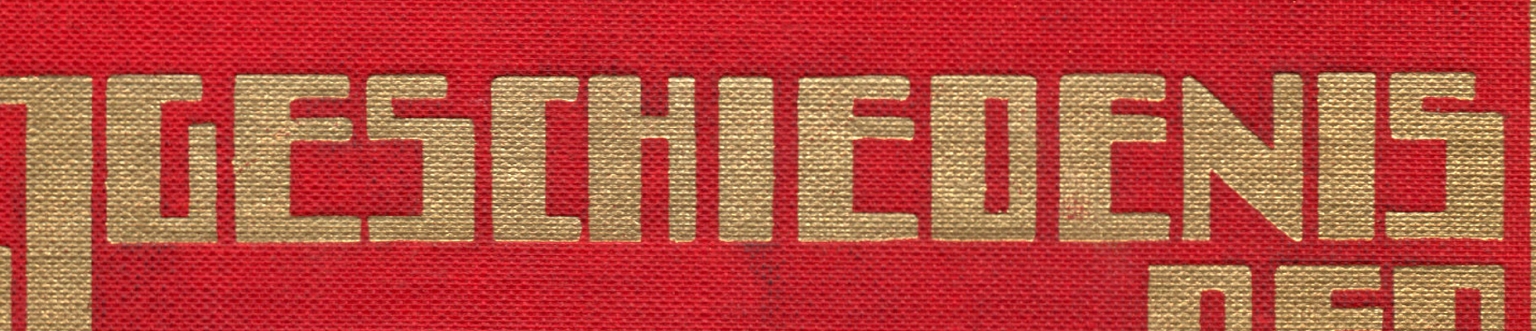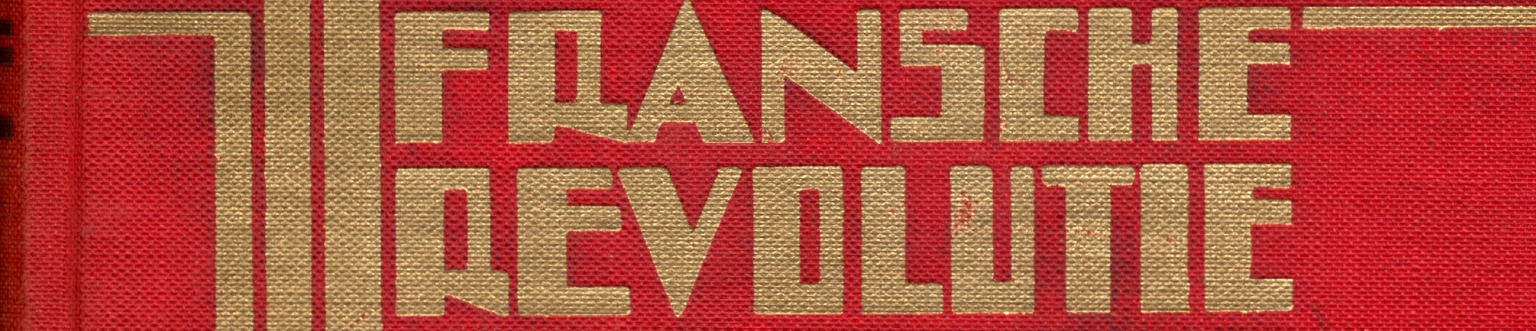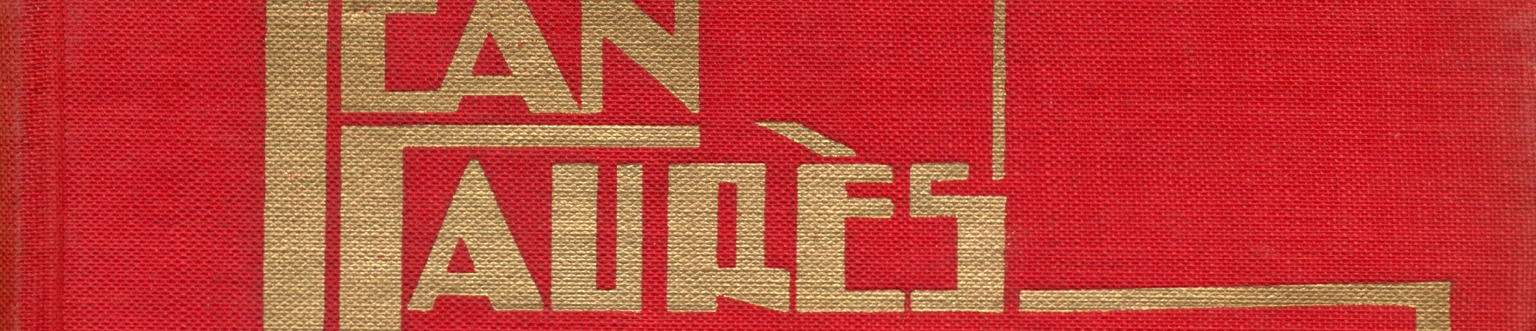
Revolutie
Revolutie is a constructivist-inspired display typeface designed by Ramiro Espinoza and released through Brutal Types. Its origins lie in a chance encounter with a 1930 Dutch edition of History of the French Revolution by Jean Jaurès. While browsing a used bookstore in The Hague in 2025, Espinoza was immediately struck by the book’s bold and angular cover lettering—a composition radiating the tension and optimism of interwar avant-garde design. Though the cover artist remains uncredited, their work left a lasting impression.
Intrigued by its striking presence and historical resonance, Espinoza acquired the book and began developing a typeface that could expand on its expressive visual vocabulary. The result is Revolutie: a modular, sharply geometric typeface with echoes of Dutch expressionism and constructivism, adding a local layer of visual intensity to the mix. With its assertive letterforms and rhythmic repetition, it’s ideal for poster design, logos, websites, and cultural projects seeking bold typographic expression rooted in 20th-century European modernism.